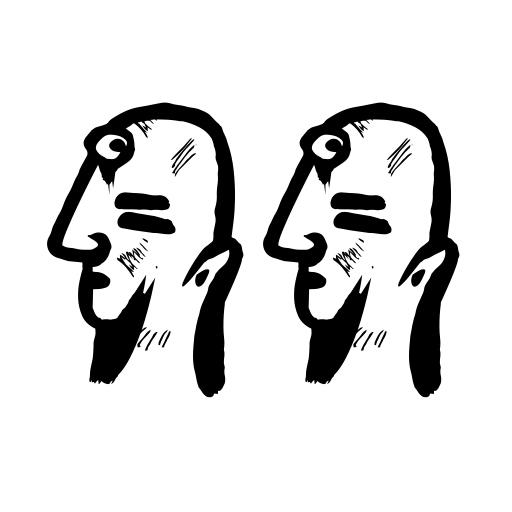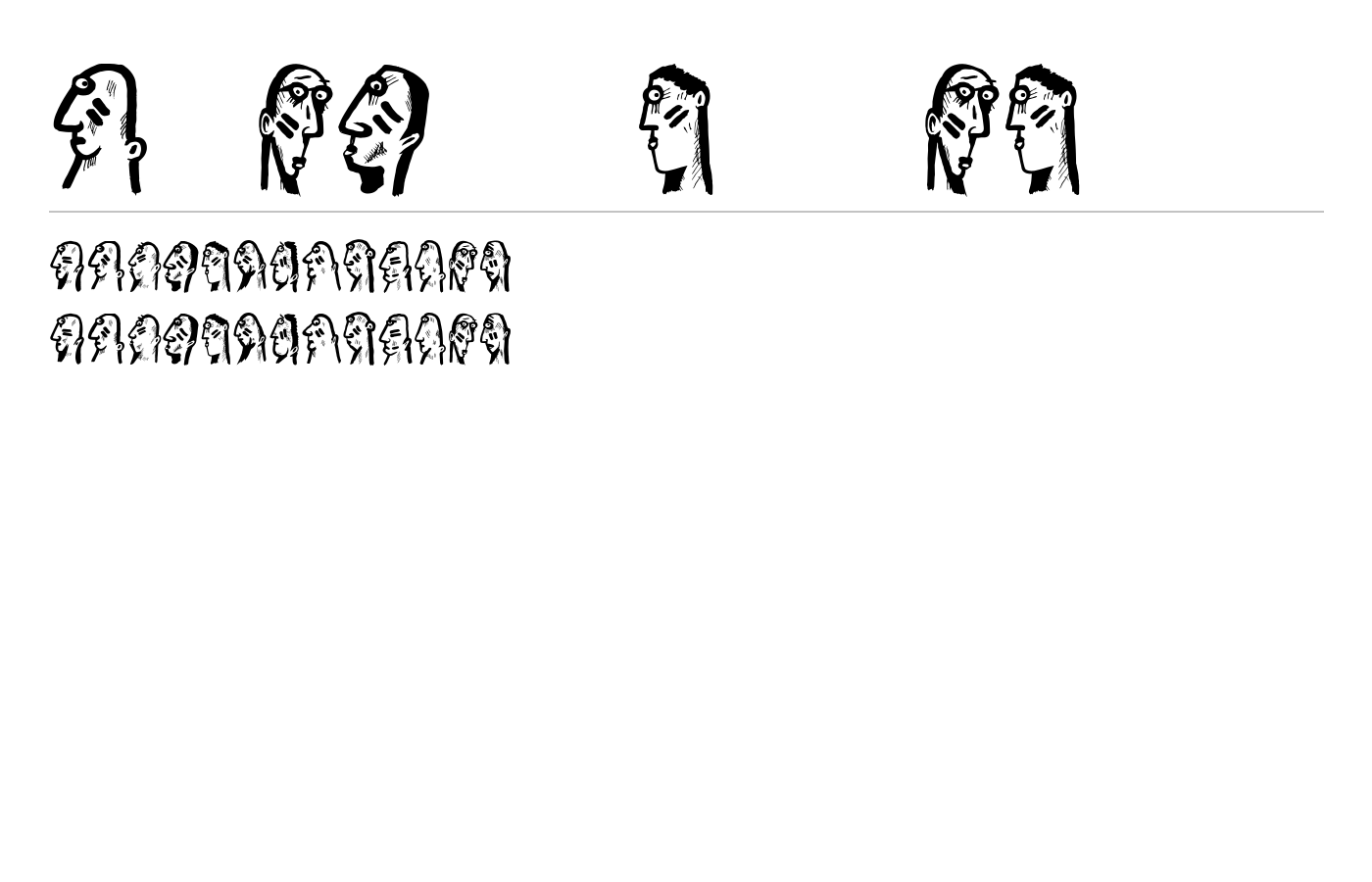
Bold People Font is a unique, hand-drawn typeface featuring playful, illustrated human profiles instead of traditional letterforms. Its quirky and expressive style makes it ideal for creative projects, children’s books, and artistic branding that seeks a bold and whimsical touch. This font adds character and personality in visual storytelling rather than conventional text use.
Bold People Font
About Bold People Font
| Font family | Bold People Font |